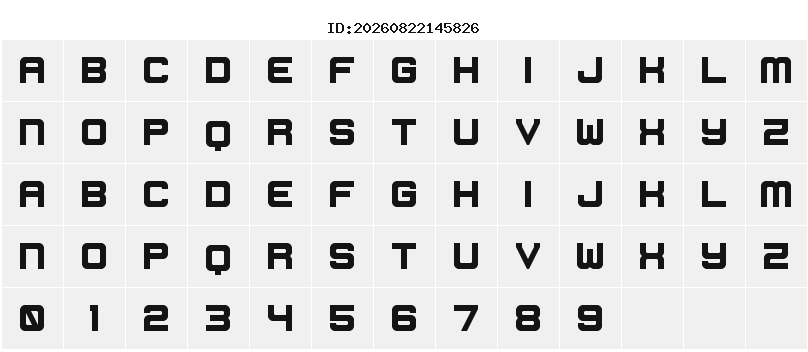
Scorpion Preview
• Font Name: Scorpion
• Font ID: FontStruct Scorpion
• Full Font Name: Scorpion Regular
• PostScript Name: Scorpion
• Character Count: 72
• Designer: GeronimoFonts
• Description: “Scorpion” was built with FontStruct
About Scorpion.ttf
Scorpion.ttf is a modern, elegant sans-serif font designed for ultimate readability and visual harmony. Perfect for branding, headlines, web design, and print materials.